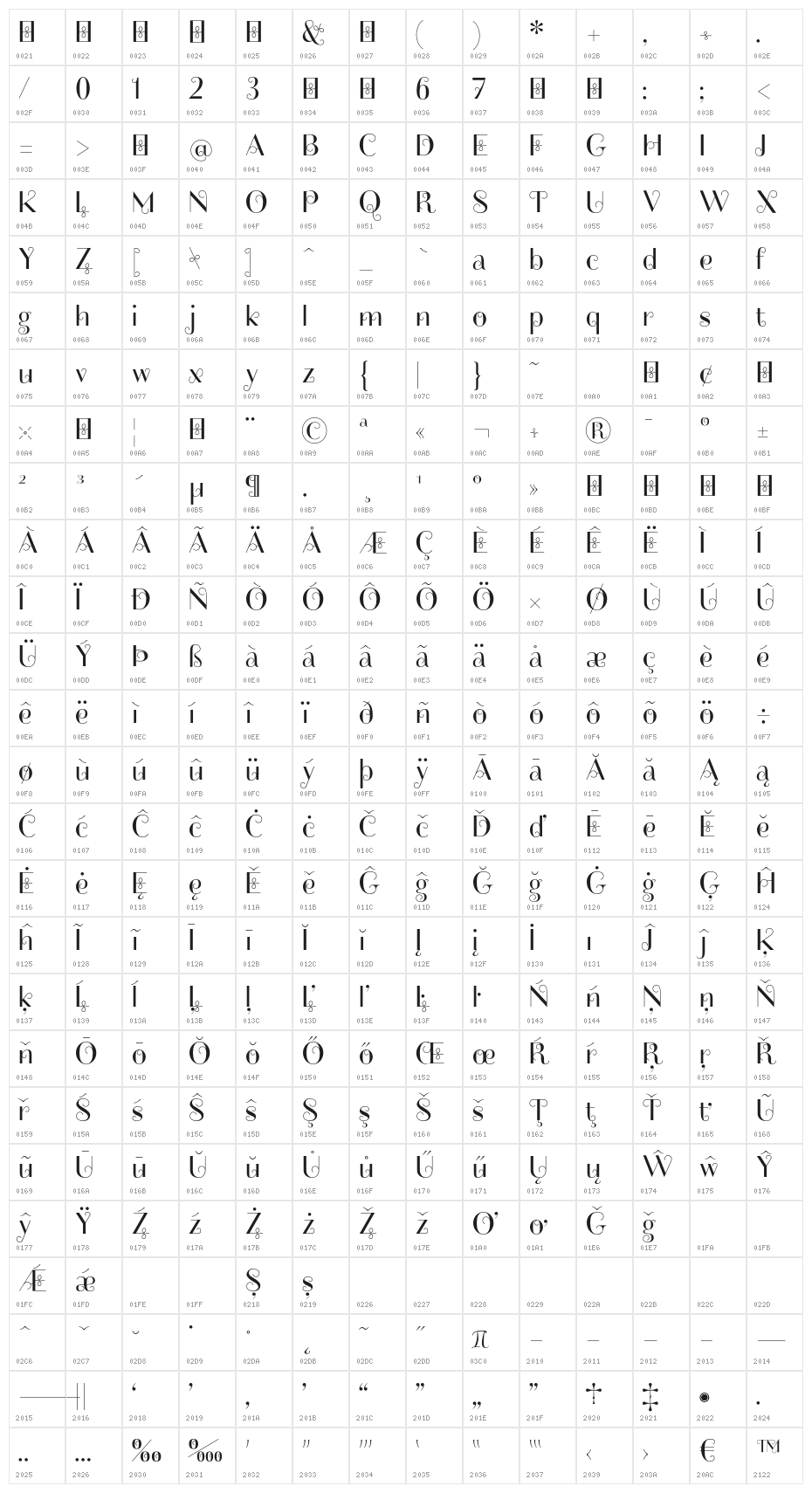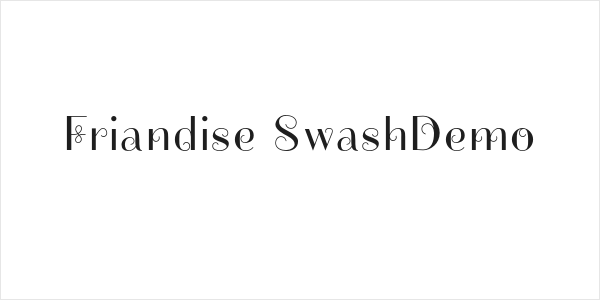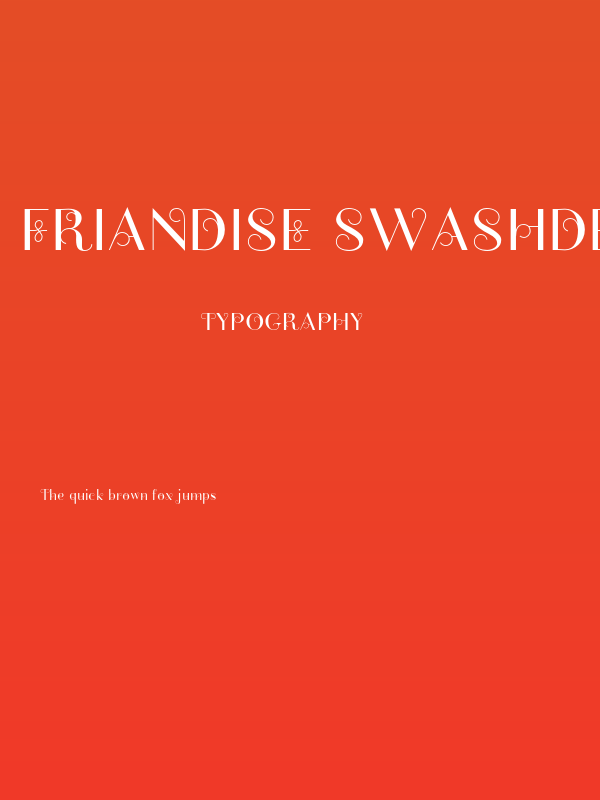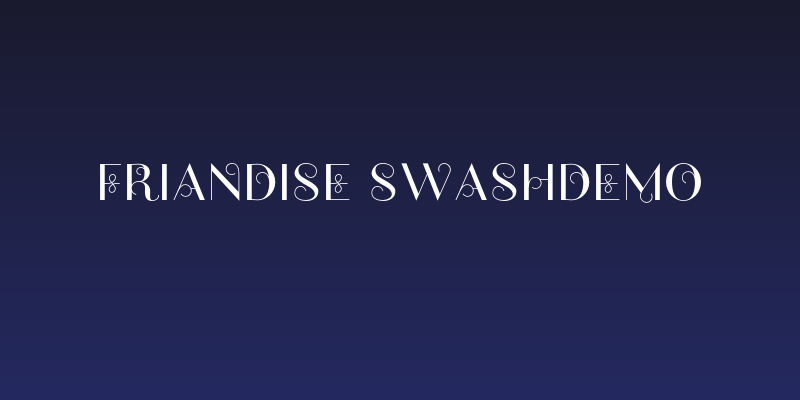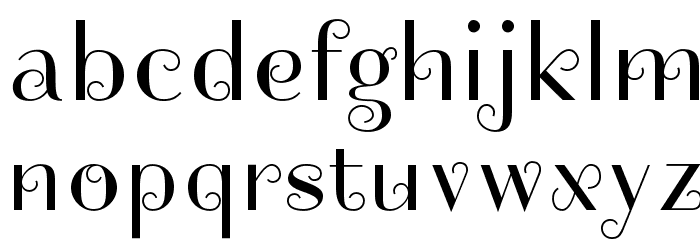
Friandise SwashDemo Font
Friandise SwashDemo Description
This font features an elegant and decorative style with intricate swashes and flourishes that add a touch of sophistication to each character. The uppercase letters are particularly ornate, with loops and curls that extend from the main strokes, creating a sense of movement and grace. The lowercase letters maintain a more subdued yet complementary design, ensuring readability while still offering a unique aesthetic. The numerals and special characters continue this theme, with some characters incorporating the same swash elements. Overall, this font combines traditional elegance with a modern twist, making it suitable for a variety of creative applications.